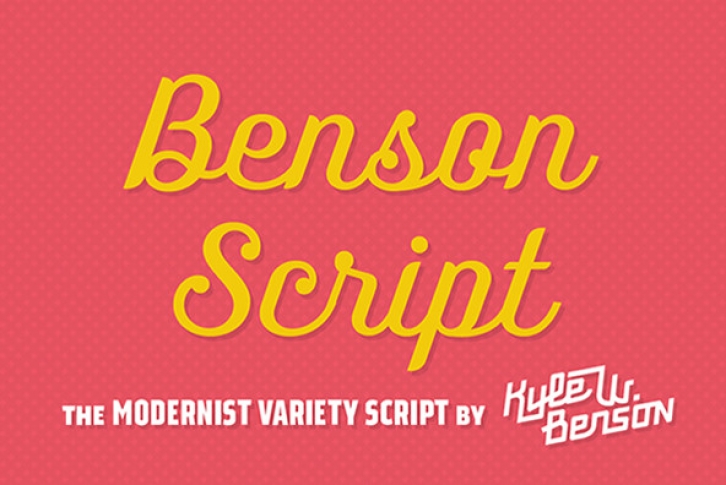
Modernism's desire to fit all elements within geometric constraints and adhere to strong verticals has spread throughout type design, but has had little to do with the frills and ornaments of script. Cutting a script down to its bare bones has is an offensive idea to many—almost seeming insulting to its genre. Benson Script bridges that genre gap between frill and function. As a matter of genre Santa Barbara errs on the side of modernism, and adds flair as a last resort.